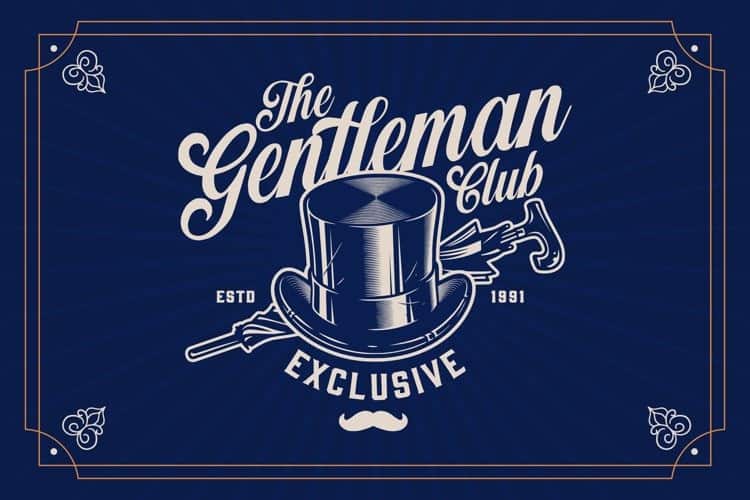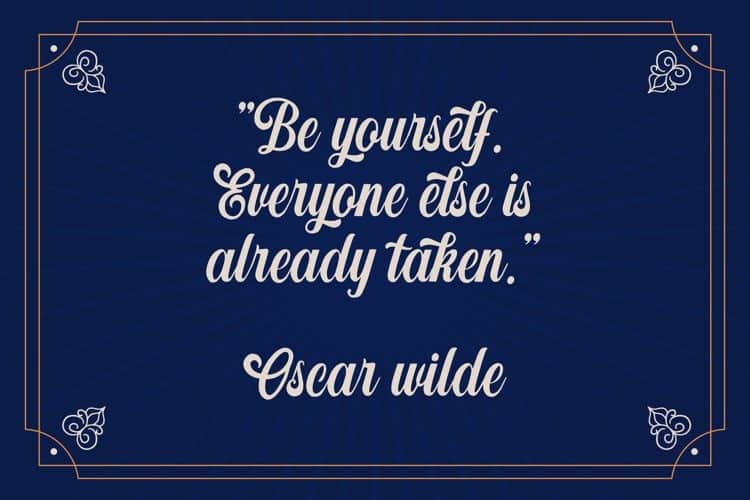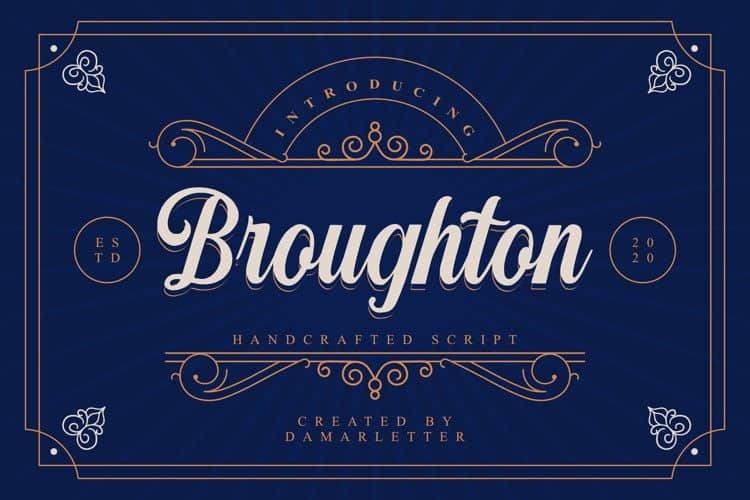
Broughton Script Font
Broughton Script Font inspired by modern Vintage & Retro style and combination with old american traditional style. Broughton is consisting of a fashionable handbrush-style script make looks elegant, classy and touch of luxury and stylish.
This font was created to look as close to a natural handwritten script as possible by including 9 ligatures.
Broughton Font is perfect for brand design, barbershop logo, branding projects, logo, wedding designs, social media posts, advertisements, product packaging, product designs, label, photography, watermark, invitation, stationery and anything that you want.